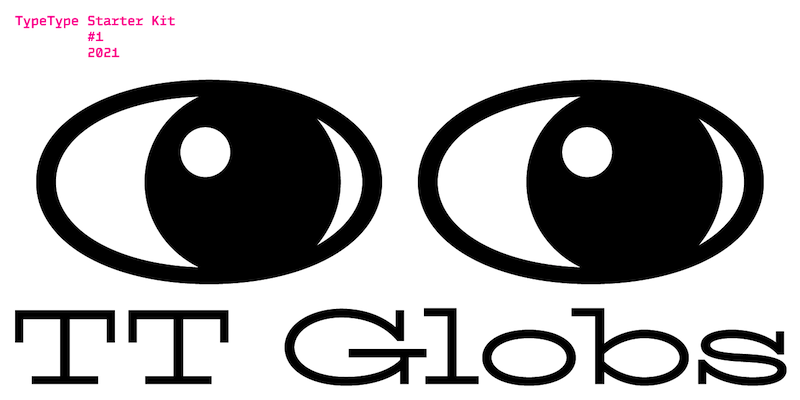
We were inspired to develop TT Globs by the idea to unite historical slabs with contemporary perceptions about fonts, their uses, and display shapes of letters. Working on the typeface, we even wanted to make curves more mechanical and rather modular, which would be very much in contrast with the cozy lines from historical specimens. The main visual features of TT Globs are the long display serifs, which create a unified text image and connect all the letters, especially uppercase, into an almost uninterrupted dynamic chain. Thanks to the long serifs and rather narrow spacing, the result of working with the text will always be a little different, and depending on the words you choose, you can even create particular images. In addition, TT Globs stands out by its very wide letter proportions, tall lowercase characters, and long ascenders and descenders. To mix up the rigid font rhythm, we created asymmetric wave-like terminals and flowing elements in some letters. Specifically, the flowing shapes of the letters GSQRasgec can be mentioned in this regard�they attract attention and can even serve as an important element in a logotype. The TT Globs font family consists of 3 weights (ExtraLight, Light, Regular) and one variable font. Each style has 625 glyphs and 26 OpenType features. An interesting feature of the typeface is the stylistic alternates, for instance, Q and R with straight legs which make the font feel more serious. In addition, the font also has a set of alternative letters with sticking serifs, a set of beautiful ligatures, and several original icons and frames. --- THIS IS A TRIAL FONT FOR PERSONAL USE ONLY. If you want to use TT Globs in published or commercial projects you will have to buy this font: https://typetype.org/fonts/tt-globs/ More... |